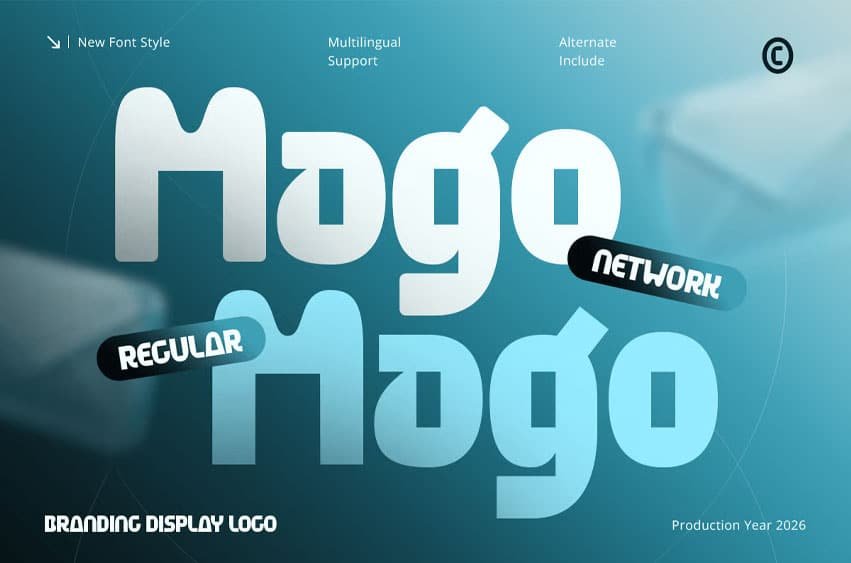
Mago Font Branding Display Bold Logo Font is a powerful display font designed for logo design, modern branding, corporate identities, business projects, and impactful visual communication. Inspired by bold contemporary typography and modern brand aesthetics, Mago combines strong letterforms with a confident display style to help brands create memorable and recognizable identities.
Featuring bold letterforms, balanced proportions, and a strong visual presence, Mago is built to make headlines, logos, and brand names stand out. Its distinctive yet versatile character works well for branding systems, promotional graphics, digital content, editorial headlines, and other creative projects where typography needs to command attention.
Whether you’re creating a business logo, developing a startup identity, designing a bold brand system, or producing eye-catching marketing materials, Mago provides the high-impact typography needed to give your designs a confident and professional appearance.
Mago Font Features
- Character Set: Uppercase, lowercase, numbers, symbols, and punctuation
- Bold display letterforms optimized for logo design, branding, and headlines
- Strong visual presence for impactful brand names and logotypes
- Prepared with regular and rounded style inside
- OpenType features ready to enhance your design needs
Mago is Perfect For
- Bold logo and logotype design
- Corporate and business branding
- Startup and modern brand identities
- Creative agency and studio branding
- Headlines and display typography
- Marketing and promotional graphics
- Website headers and digital brand assets
- Contemporary visual identity systems
Whether you’re creating a bold logo, developing a modern corporate identity, launching a startup brand, or designing high-impact marketing graphics, Mago delivers the confidence, versatility, and strong visual character of a bold branding display logo font built for contemporary creative projects.